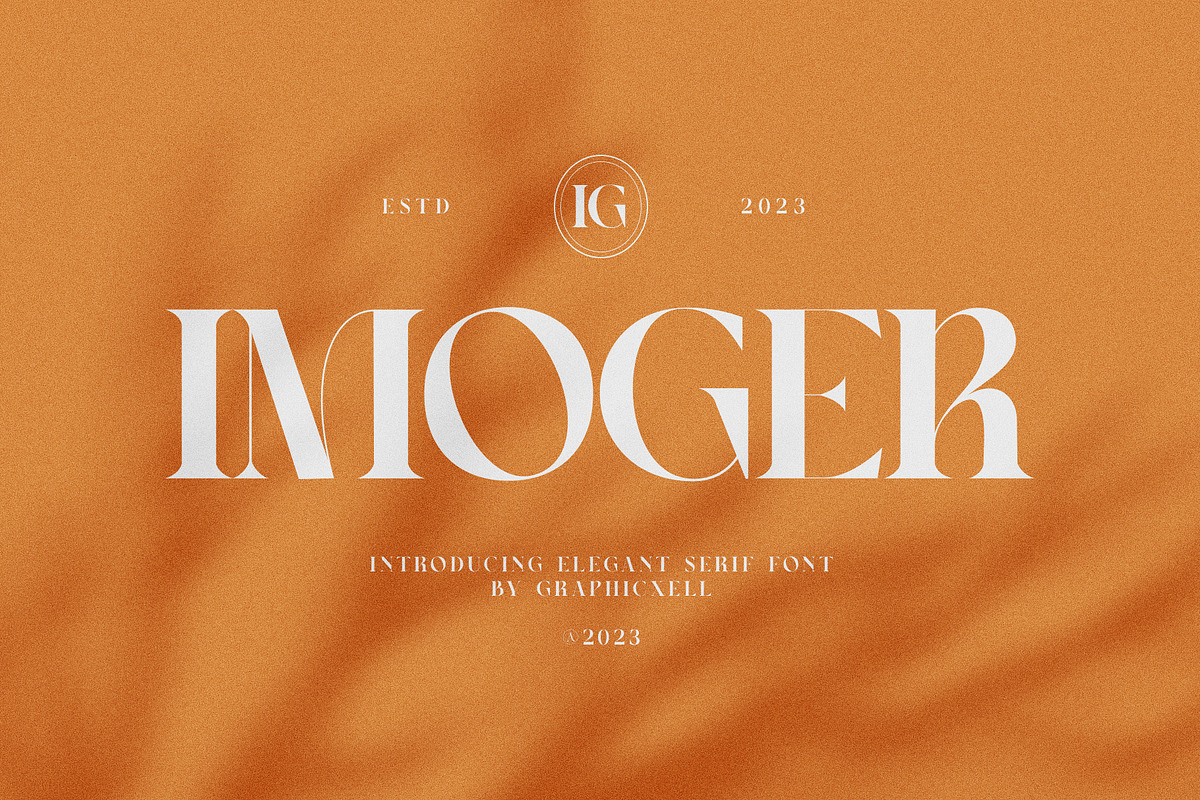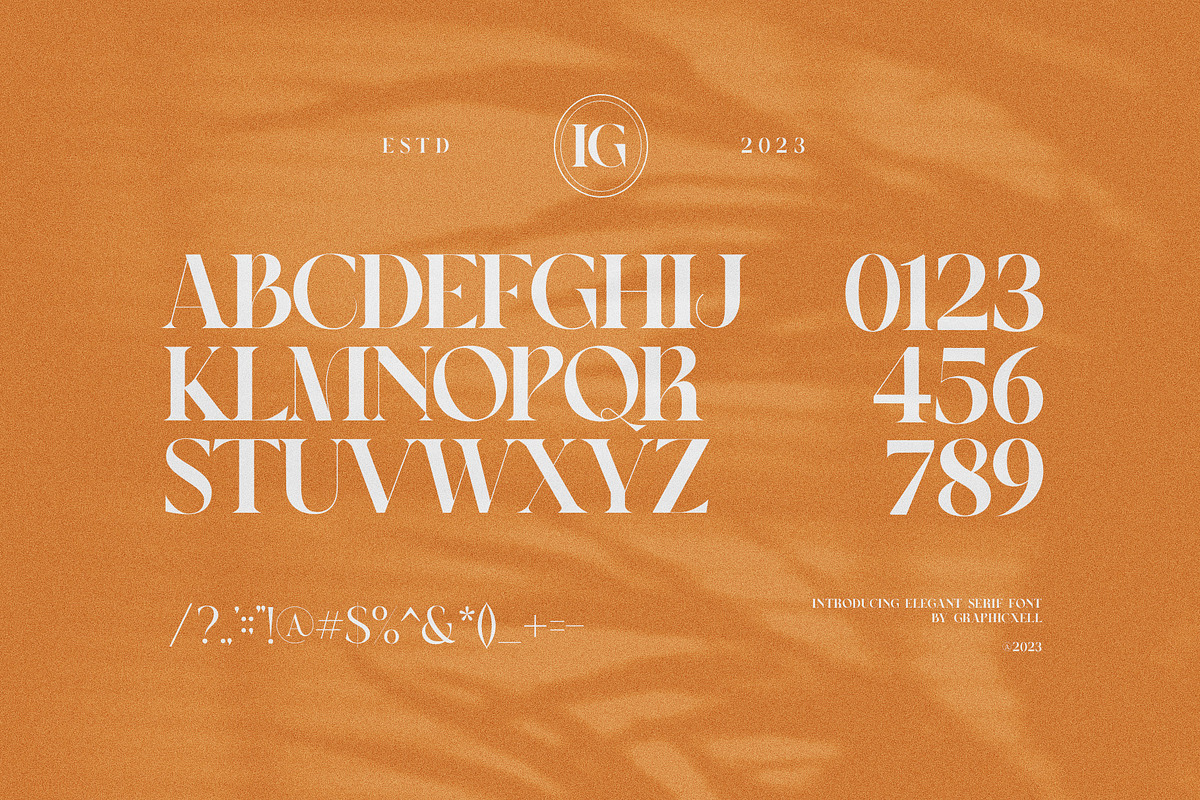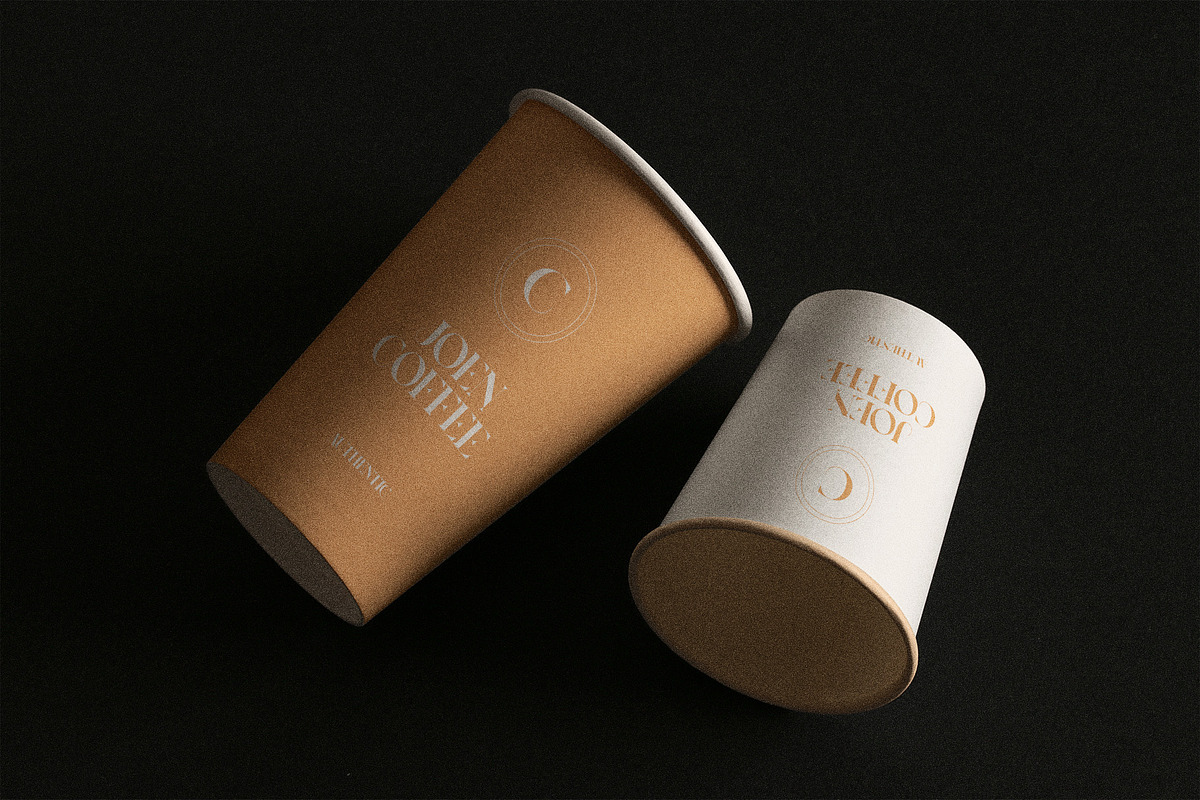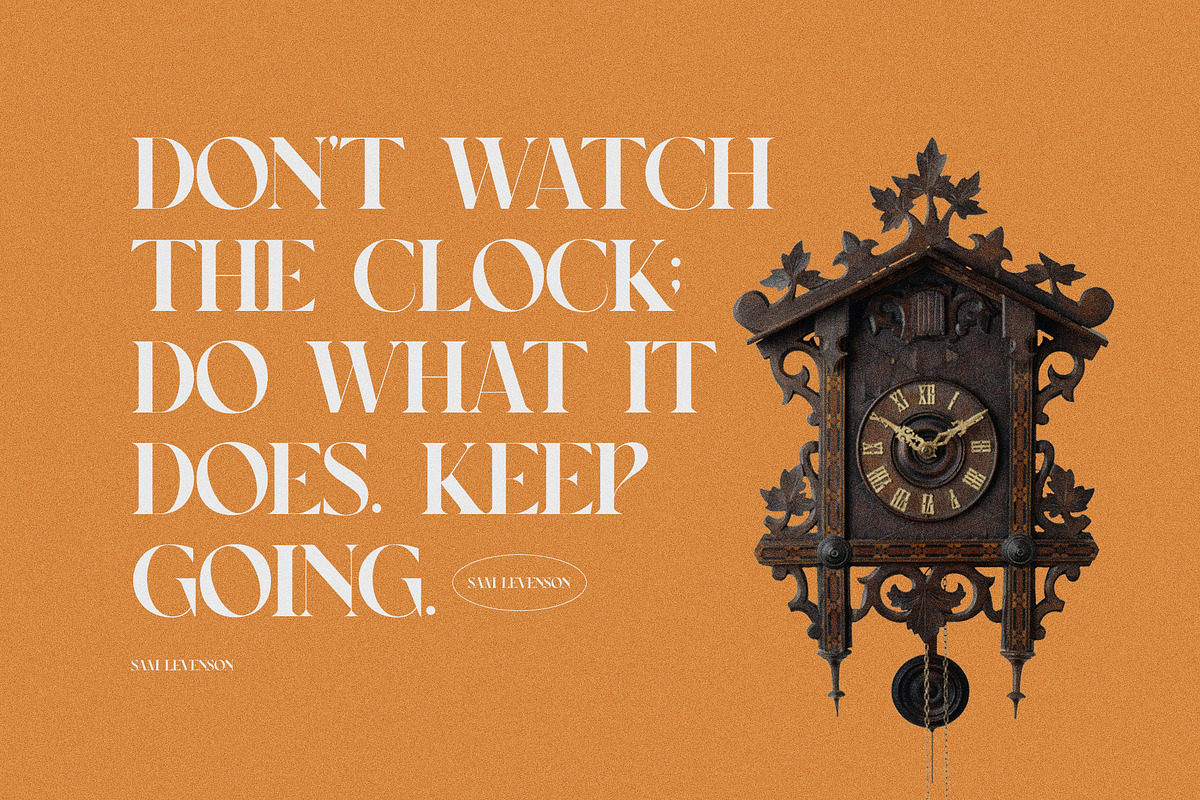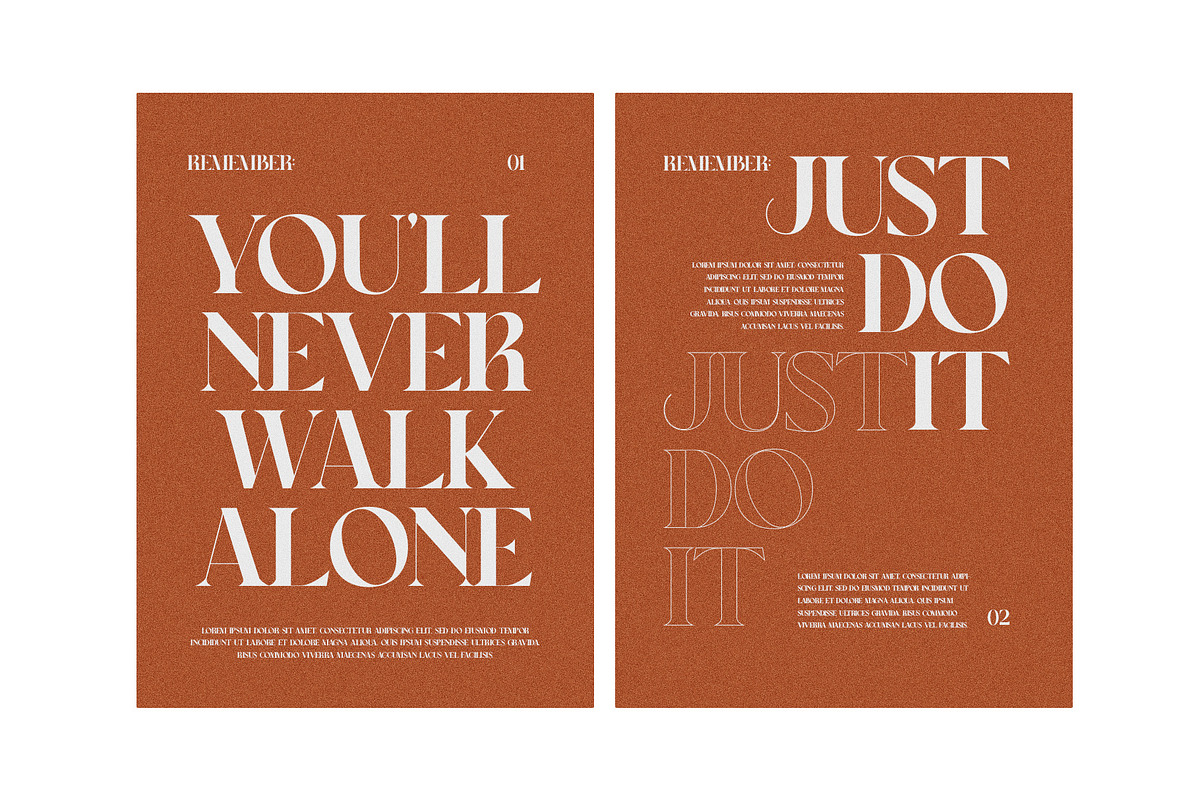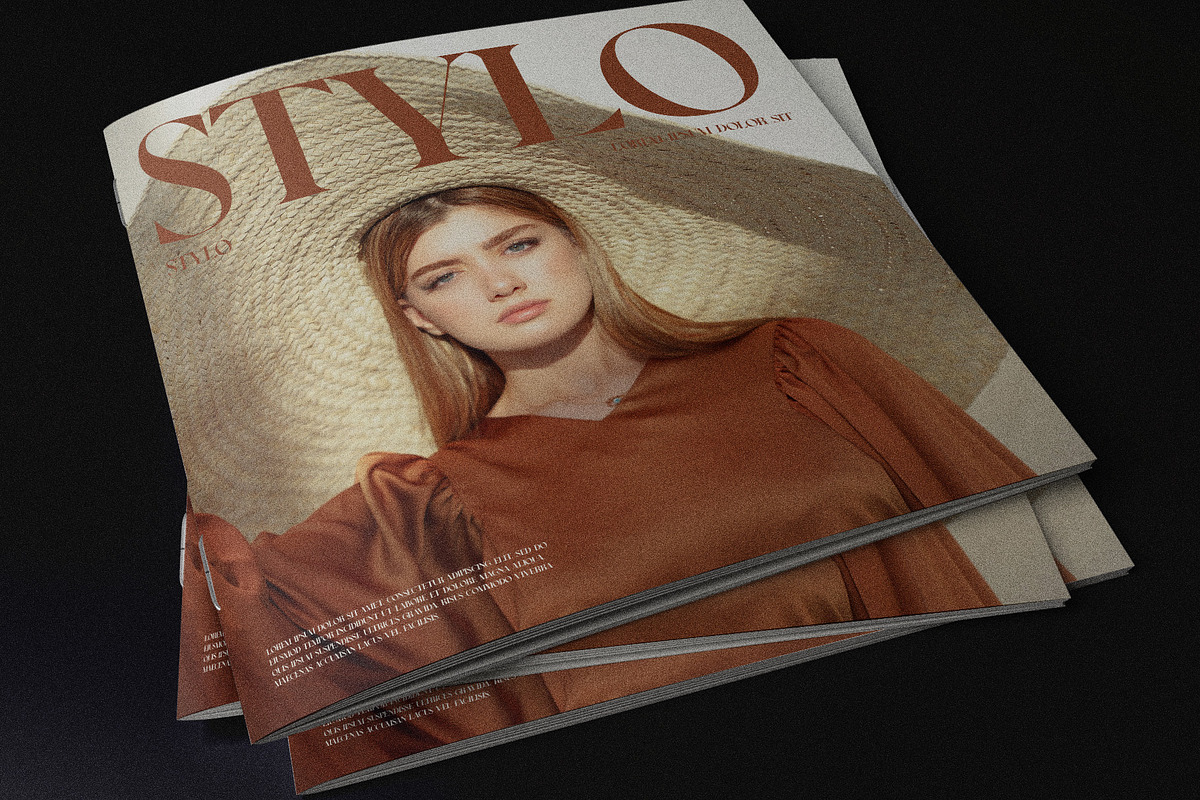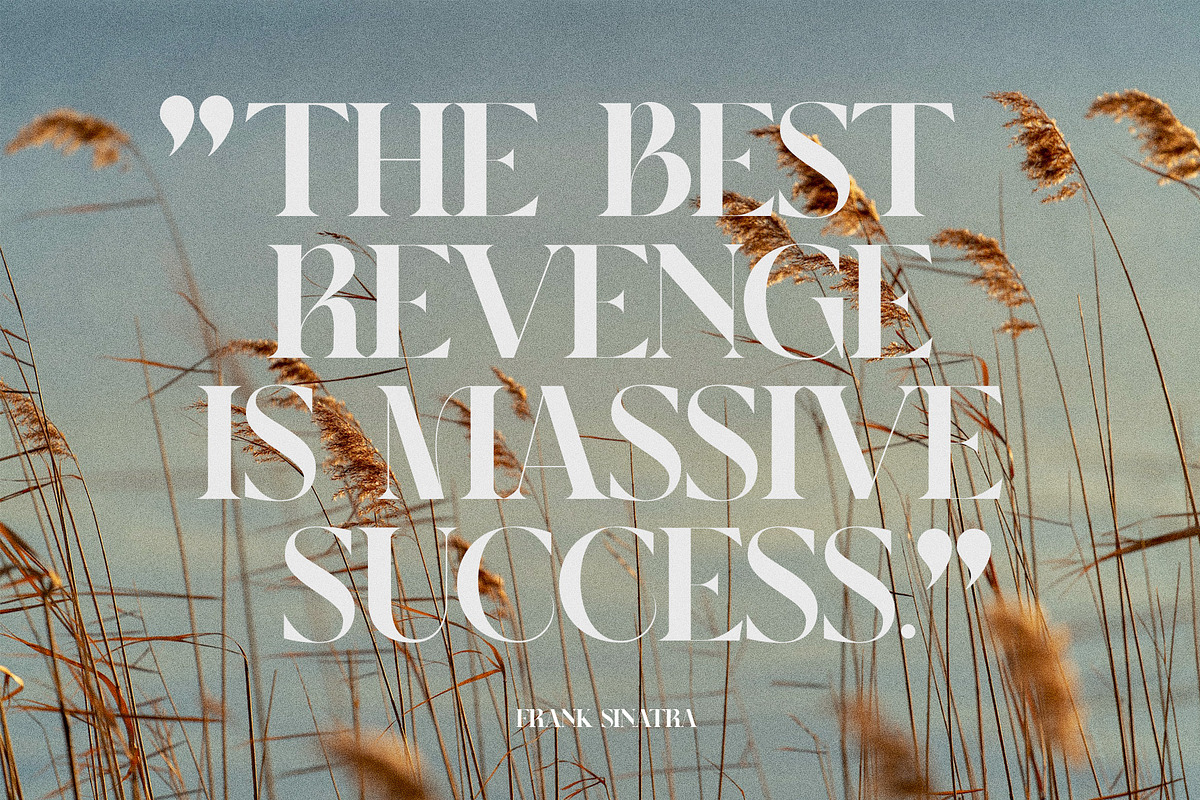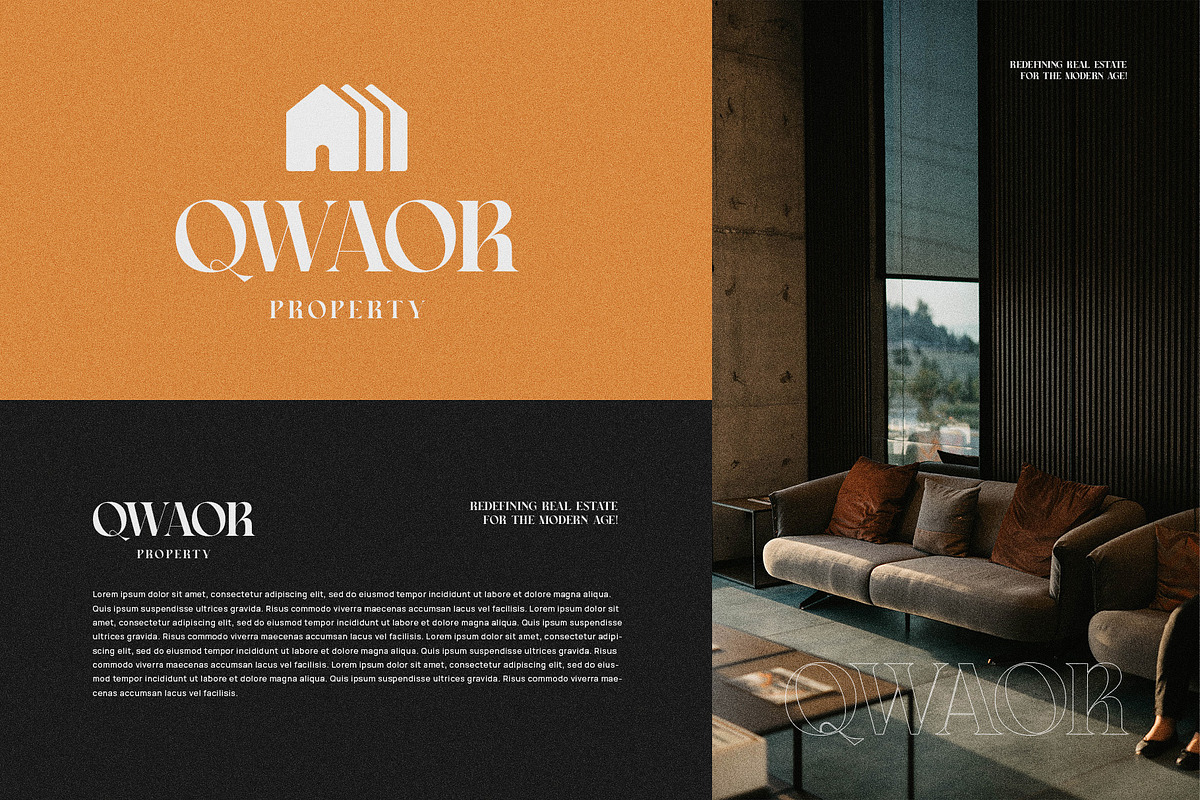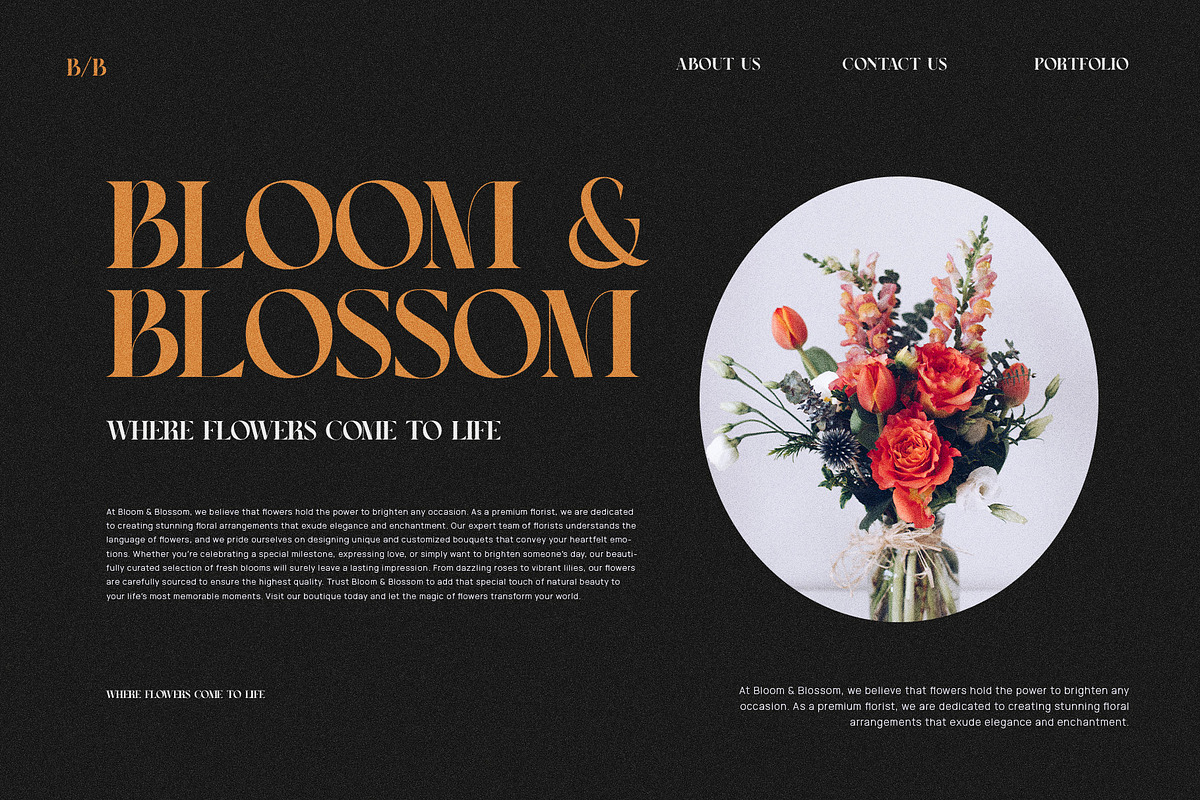
Imoger Elegant Serif Font
Imoger Elegant Serif Font is a newcomer serif font that offers a gracious first impression. The serif style is very noticeable on this font. What makes it attractive is how it plays with the thickness of the lines in the letterforms. The bolded part creates a strong impression while the thin part looks charming. The beautiful curves also become a special appeal so that it is suitable for various styles of designs. So, you can use it for different purposes including book titles, product designs, invitations, etc. With a smooth contour, every letter looks elegant. The snaking lines give a special impression with a unique way. From classic to modern, this font still always matches. Elevating your own design is no longer a hard job thanks to this elegant serif. Created with a perfect combination of uniqueness and beauty, the Imoger Elegant Serif Font could be the best choice for typography.